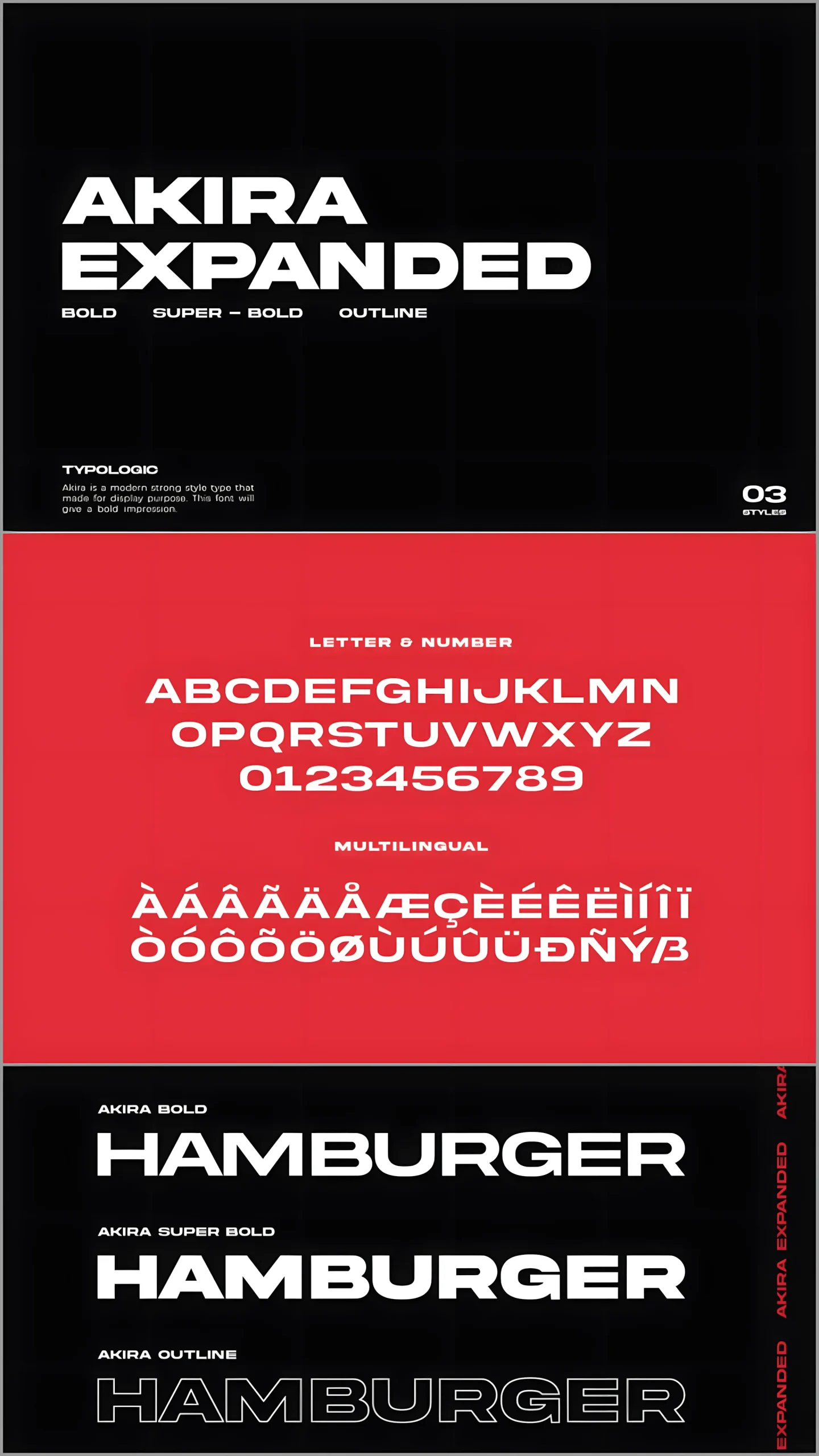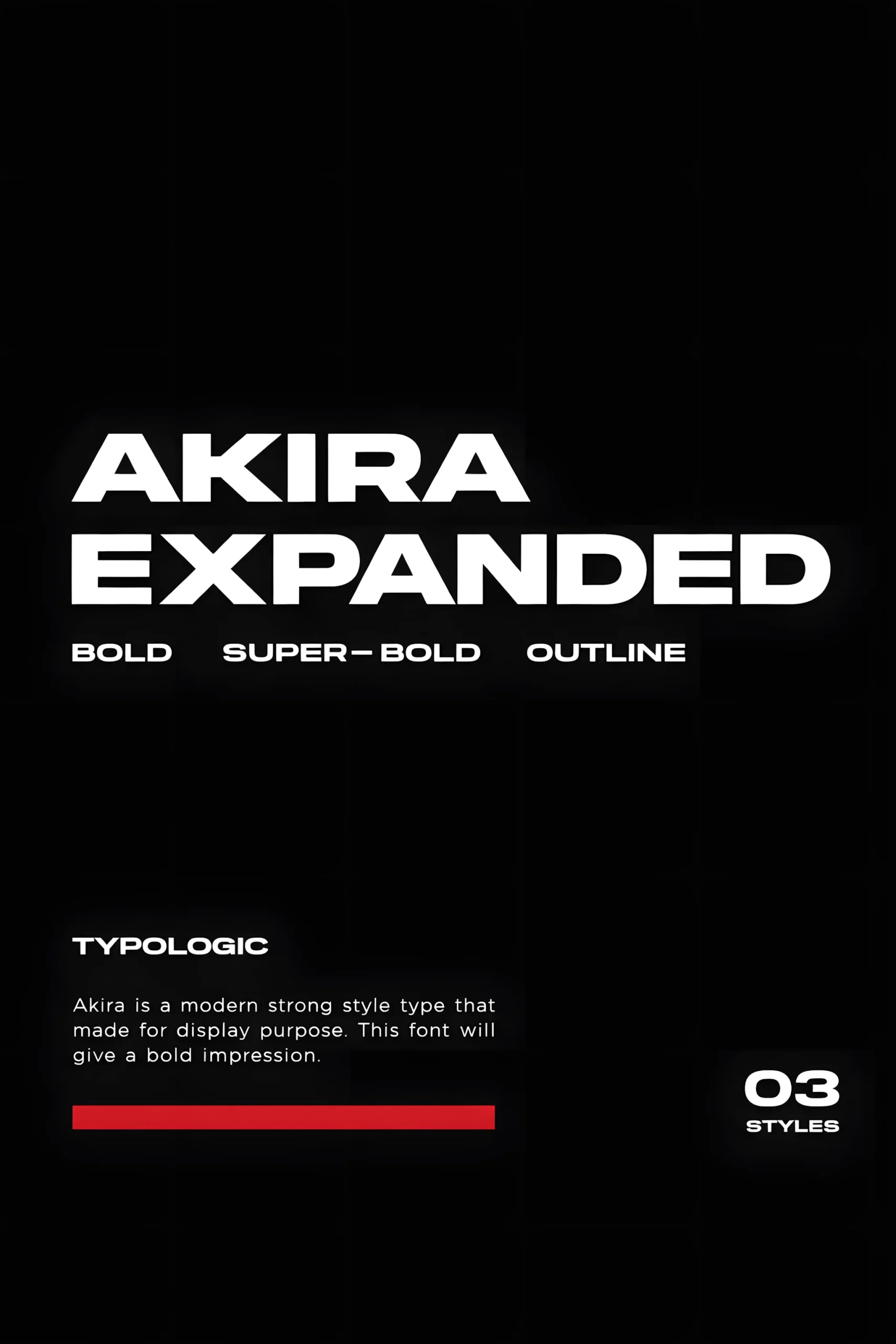
Akira Expanded font is a bold modern sans serif typeface built for designers who want strong visual impact. Some fonts are meant to blend in, but Akira Expanded is designed to do the opposite.
With its expanded proportions and clean geometric structure, Akira Expanded fits naturally into contemporary branding, digital interfaces, and large-scale visual communication where impact matters more than subtlety.
A Typeface Designed for Presence
Akira Expanded belongs to the modern sans-serif family, but its defining feature is width. The expanded letterforms create a sense of space and authority, giving words a strong visual footprint without relying on decorative elements.
This design choice makes the font especially effective when the goal is to:
- emphasize headlines
- create bold brand statements
- establish a modern, tech-forward tone
The font feels intentional and controlled, not exaggerated, which helps it remain versatile across different design contexts.
Three Styles That Work Together
One of the key strengths of Akira Expanded is its flexibility through variation. The font family includes three distinct styles:
- Super Bold
- Bold
- Outline
These styles are designed to complement each other, allowing designers to mix and layer them within the same project. For example, a bold filled headline can be paired with an outline subheading to create contrast without switching typefaces.
This makes Akira Expanded especially useful for systems where consistency matters.
Visual Character and Typography Details
Akira Expanded uses clean, straight lines and geometric forms that give it a futuristic, almost architectural feel. The letter spacing is balanced, ensuring readability even at large sizes.
Key visual characteristics include:
- strong horizontal presence
- sharp edges and clean curves
- consistent stroke weight
- modern, minimal aesthetic
The font supports uppercase letters particularly well, where its structure feels most powerful and deliberate.
Best Use Cases in Real Design Work
Branding and Identity
Akira Expanded works well in brand identities that aim to feel bold, modern, and confident. It is especially suited for:
- technology brands
- creative studios
- fashion and lifestyle labels
- sports or performance-related branding
Used sparingly, it can define a brand’s voice through typography alone.
Headlines and Editorial Design
Because of its width and clarity, the font excels in headlines. It performs well in:
- posters
- magazine covers
- website hero sections
- advertising campaigns
The expanded form naturally draws attention, making it effective for high-impact messaging.
Digital and Motion Graphics
Akira Expanded translates well to digital environments. Its clean shapes remain legible on screens, and the structure works smoothly in motion graphics and video overlays.
It is often used in:
- UI headlines
- promo videos
- social media visuals
- digital banners
The outline style is especially useful for animated text effects.
Multilingual and Technical Support
The font includes a wide range of glyphs, numbers, punctuation, and multilingual characters. This makes it suitable for international projects without the need for substitutions or fallback fonts.
Why Expanded Fonts Continue to Trend
Expanded sans-serif fonts have become increasingly popular because they balance minimalism with impact. They feel modern without being cold and bold without being aggressive.
Akira Expanded fits perfectly into this trend. It offers visual confidence while remaining clean and adaptable, which is why it continues to be used across industries.
Who This Font Is Best For
Akira Expanded is especially well suited for:
- graphic designers
- branding professionals
- digital creators
- marketing teams
- anyone working with bold visual communication
It is designed for projects where typography needs to lead, not follow.
Final Perspective
Akira Expanded is a font that knows what it wants to be. Strong, modern, and unapologetically bold, it offers designers a reliable tool for high-impact visual communication.
For projects that require clarity, confidence, and a contemporary edge, this typeface delivers a powerful typographic foundation that stands out without losing control.